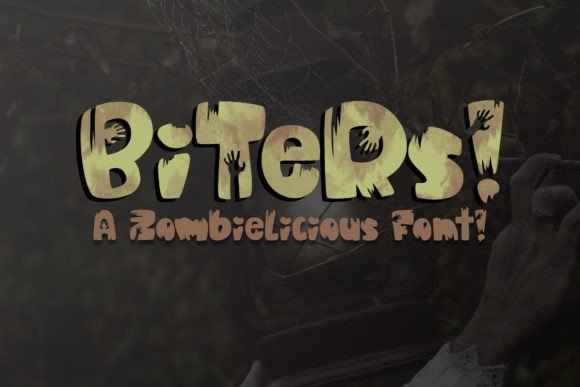
Get Ready to Unleash Your Creativity with Biters Font
Do you remember that moment when you were a kid and you drew a zombie with arms and legs all tangled up? The excitement of bringing your imagination to life is still there, and now, as a designer, you have the chance to relive that feeling with the perfect font.
Meet Biters Font, the ultimate combination of fun and creepy. This zombie script font features bold, fat letters with a twist – zombie hands incorporated within the design. It’s the perfect fit for Halloween events, coloring books, and any project that needs a touch of spooky creativity. With Biters Font, designers can tap into their imagination and create something truly unique. Whether you’re working on a graphic novel, a children’s book, or a Halloween-themed campaign, Biters Font is the perfect tool to unleash your creativity and make your project stand out.
Biters Font Key Features
- Unique Characteristics: The font features a distressed, grungy aesthetic with irregular letterforms and subtle texture, making it perfect for adding a touch of edginess to designs.
- Kerning and Ligatures: The font includes advanced kerning and ligature pairs, ensuring that text is rendered smoothly and professionally, even in complex layouts.
Biters Font Review
Overall, I think the Biters Font is an interesting and unique addition to any design project. It’s perfect for those looking to add some edginess to their typography.
- Unique style that stands out from the crowd
- Perfect for creating a bold and eye-catching design
- Works well for headings and titles
- Comes in a range of weights to suit different design needs
- May not be suitable for body text, as it can be difficult to read
- Some letters may not be as polished as others, which can affect overall design consistency
- Not ideal for designs that require a lot of fine detail or precision
The Biters Font is a great option for designers who want to add some visual interest to their work. While it may have some limitations, it’s a great choice for headings, titles, and other design elements where you want to make a statement. With the right use, it can add a lot of personality to your design.
Biters Font is ideal for:
- Creating bold and edgy designs.
- Logos and branding materials.
- Social media graphics and posters.
- Advertising campaigns and flyers.
- Business proposals and reports.